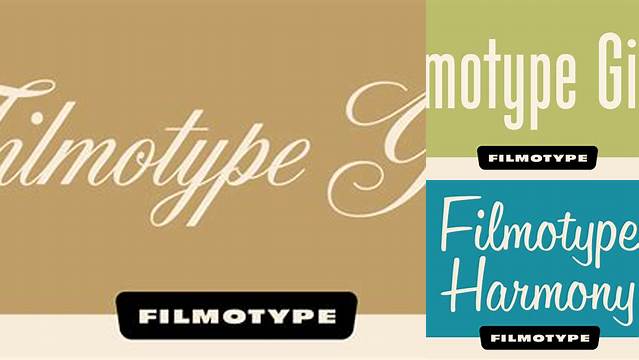
Hey guys, are you looking to add a touch of vintage charm to your designs? Well, look no further because we're diving headfirst into the world of Filmotype fonts, specifically how to get those awesome Filmotype font free download TTF files. This guide is your ultimate resource, packed with everything you need to know, from where to find these fonts to how to use them effectively in your projects. We'll cover the history of Filmotype, explore various styles, and give you the lowdown on downloading and installing these beauties. So, buckle up and get ready to transform your designs with the timeless appeal of Filmotype fonts! Let's get started.
Filmotype Font's Retro Appeal: Why Choose It?
Alright, let's talk about why Filmotype fonts are so darn cool. First off, these fonts are steeped in history. They were born from the golden age of advertising and design, back when everything had a certain je ne sais quoi. They're the font equivalent of a classic car, instantly recognizable and full of character. Choosing a Filmotype font free download TTF instantly adds a layer of sophistication and nostalgia to your work. It's like saying, “Hey, I appreciate the classics, but I'm also keeping things fresh!” These fonts are incredibly versatile. They work brilliantly in a variety of applications, from posters and logos to website headers and social media graphics. The unique styles available make it easy to find the perfect fit for your project. Think about it – you’ve got the sleekness of Filmotype Brooklyn for a modern twist, the playfulness of Filmotype Glenlake for something more fun, or the elegance of Filmotype Reporter for a touch of class. They're not just fonts; they're design statements. The attention to detail is another huge plus. Many of these fonts were painstakingly crafted, paying close attention to the curves, weights, and kerning to create a visually appealing design. So, when you opt for a Filmotype font free download TTF, you’re not just getting a font; you're getting a piece of design history and craftsmanship. Ultimately, they offer that perfect blend of vintage charm and modern usability that's hard to resist. Plus, let's be honest, who doesn’t love a good retro vibe?
Filmotype Font Styles: Exploring the Variations
Alright, let's dive into the fun part: the styles! Filmotype fonts come in a bunch of different flavors, each with its own personality. Knowing the different styles is key to picking the right font for your project. First up, we have the classic Filmotype Brooklyn. This font is all about that sleek, geometric look. It's clean, modern, and perfect for logos, headlines, and anything that needs a touch of understated elegance. Then there's Filmotype Glenlake, which offers a playful, retro vibe with its rounded letterforms. Think vintage soda ads or playful event posters. This font brings a sense of fun and nostalgia to your designs. For something a bit more formal, check out Filmotype Reporter. It has a sophisticated, slightly condensed appearance that works well for editorial designs, packaging, and branding where you want to convey a sense of authority and class. Don't forget about Filmotype Maxwell, known for its bold, expressive lettering. This font is ideal for creating a strong visual impact, perfect for posters, signs, and any design that needs to grab attention. Explore Filmotype Harmony, a font that embraces a more delicate and elegant feel, making it suitable for projects that require a touch of sophistication and refinement. If you’re after something more casual, consider Filmotype Rivoli, which brings a friendly, handwritten appearance. Lastly, don't forget the original Filmotype fonts, which often offer unique characteristics and vintage appeal. Each style brings a different personality to the table, making Filmotype fonts incredibly versatile. By understanding the different styles, you can make sure your choice aligns perfectly with the mood and message you want to communicate in your designs. So go explore these options and see which style fits your project!